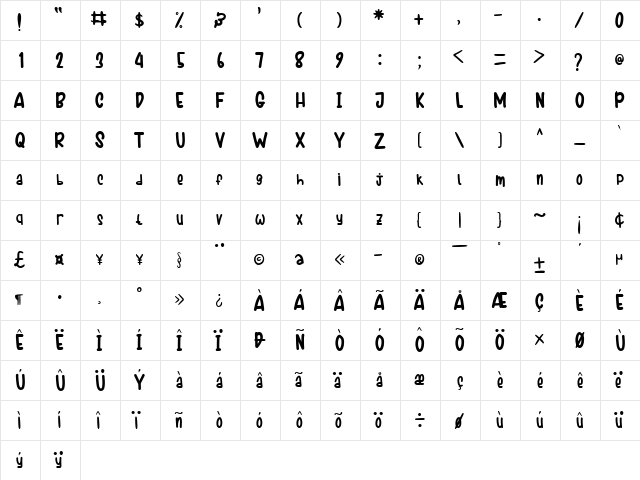
Kiddos Club Regular
Design Context for Kiddos Club Typeface
Kiddos Club is a composed and adaptable typeface that performs quietly and consistently across a wide range of design contexts.